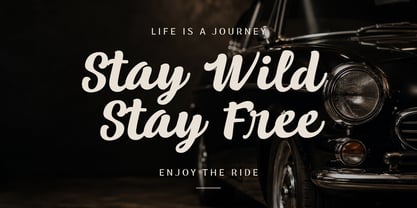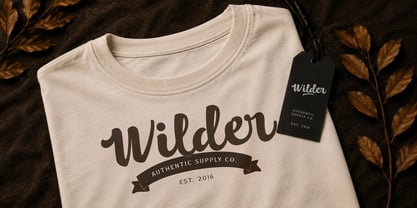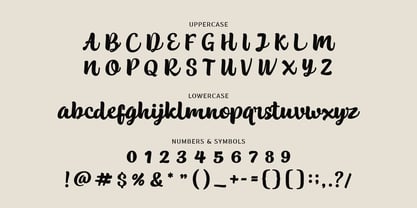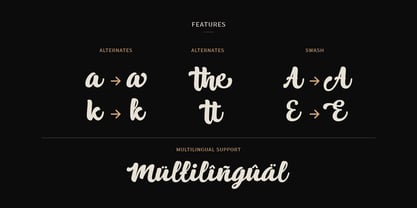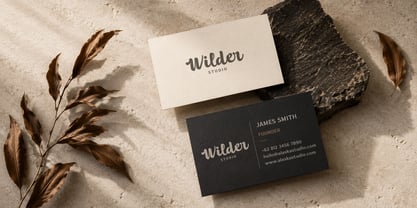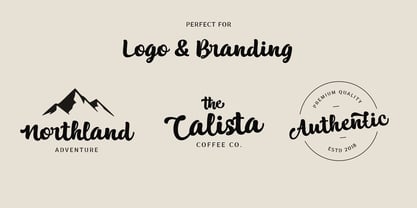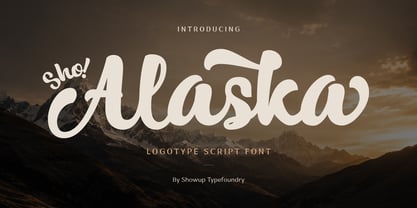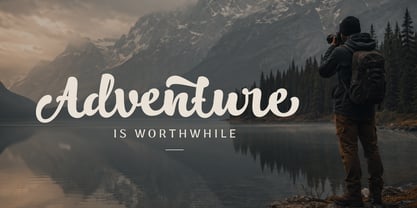
Sho Alaska
von Showup! Typefoundry
Die Schriftfamilie Sho Alaska wurde von Aulia Rahman entworfen und von Showup! Typefoundry veröffentlicht. Sho Alaska enthält 2 Stile und Familienpaketoptionen. Mehr über diese Familie
Sho Alaska is a bold, expressive brush script with an energetic handwritten rhythm and confident personality. Its flowing letterforms combine natural movement with strong readability, making headlines and short phrases feel personal, lively, and memorable. The family includes Regular and Italic styles, giving designers an easy way to add contrast and motion while keeping a consistent visual voice. Sho Alaska works especially well for logos, brand identities, product packaging, café and restaurant graphics, apparel, posters, social media, invitations, quotes, and editorial display work. Its feature set includes alternates, discretionary ligatures, swashes, ordinals, superscripts, and four stylistic sets, alongside multilingual characters, numerals, and punctuation. Choose Sho Alaska when a design calls for warmth, spontaneity, and the unmistakable character of hand-drawn lettering.
Designer: Aulia Rahman
Foundry: Showup! Typefoundry